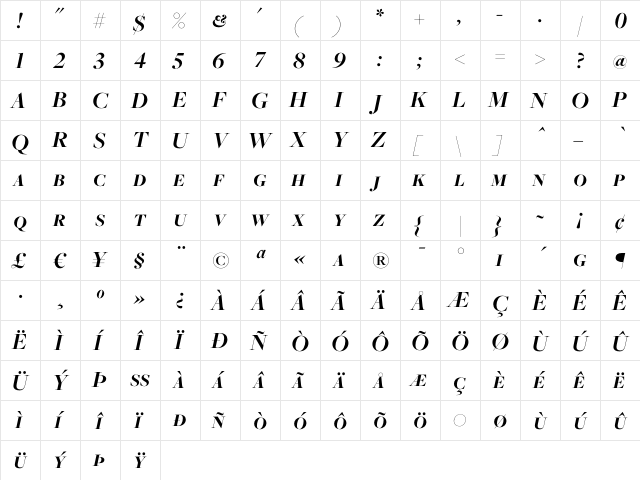
Freight Big Bold Italic SC
| Foundry | Joshua Darden & Phil's Fonts, Inc |
| Designer | Joshua Darden |
Design Context for Freight Typeface
Freight offers clean, dependable letterforms without strong stylistic allegiance, making it a practical choice for designers who need flexibility. The slanted form adds forward momentum and visual energy. The heavy weight commands attention and anchors typographic hierarchies.
Pro Tip: Try Freight for annotation and caption copy alongside an upright companion — the contrast in angle creates a dynamic but ordered typographic system.